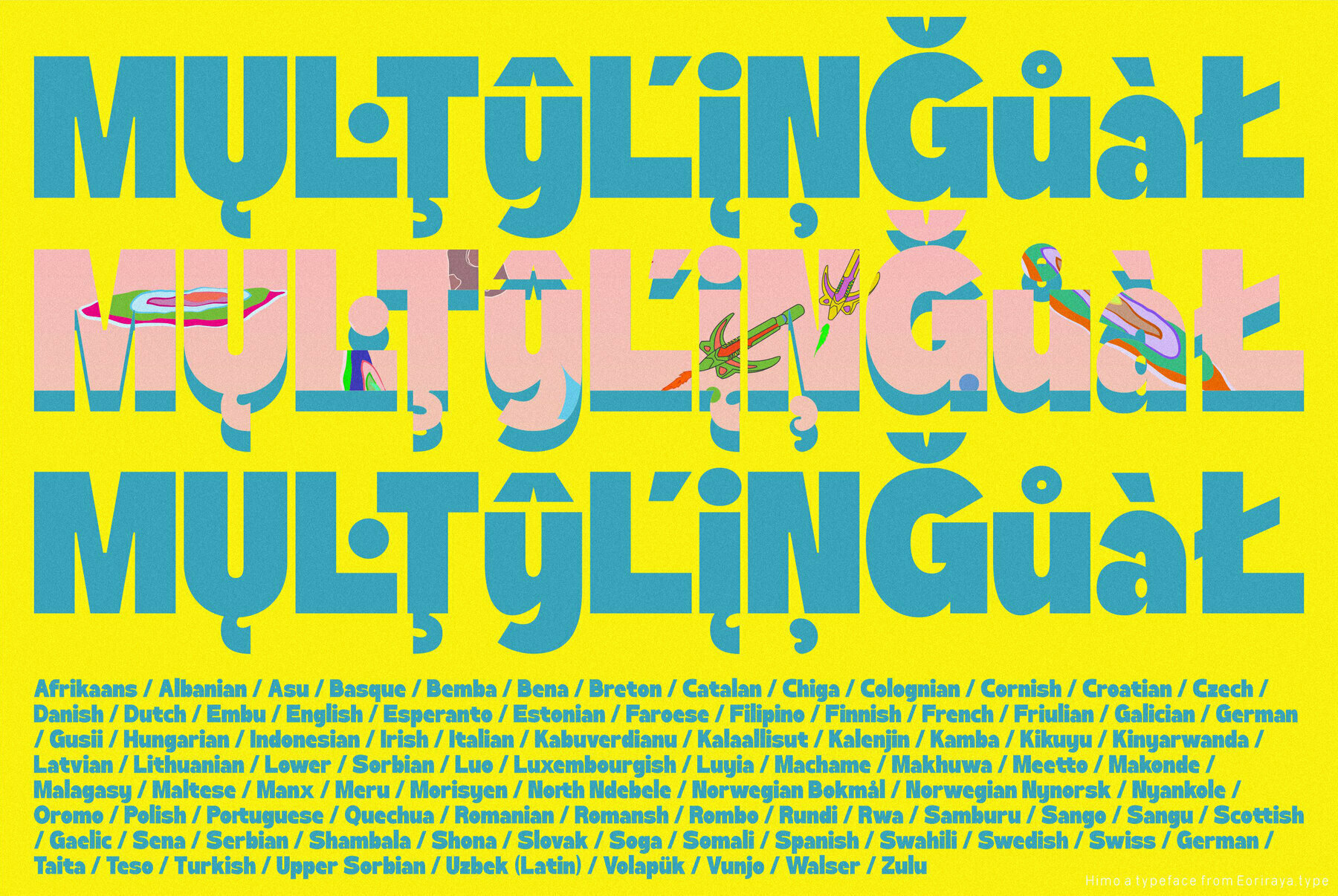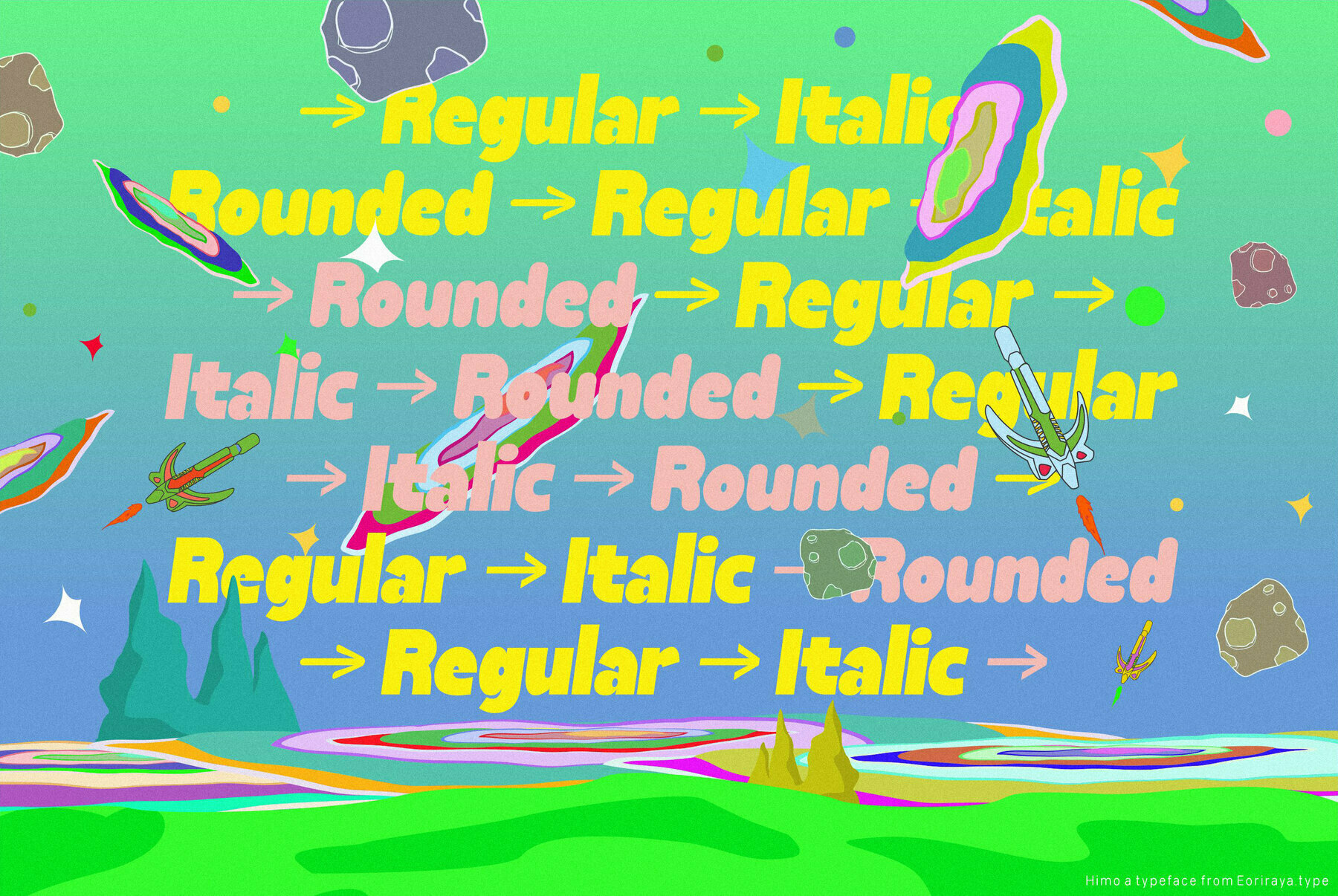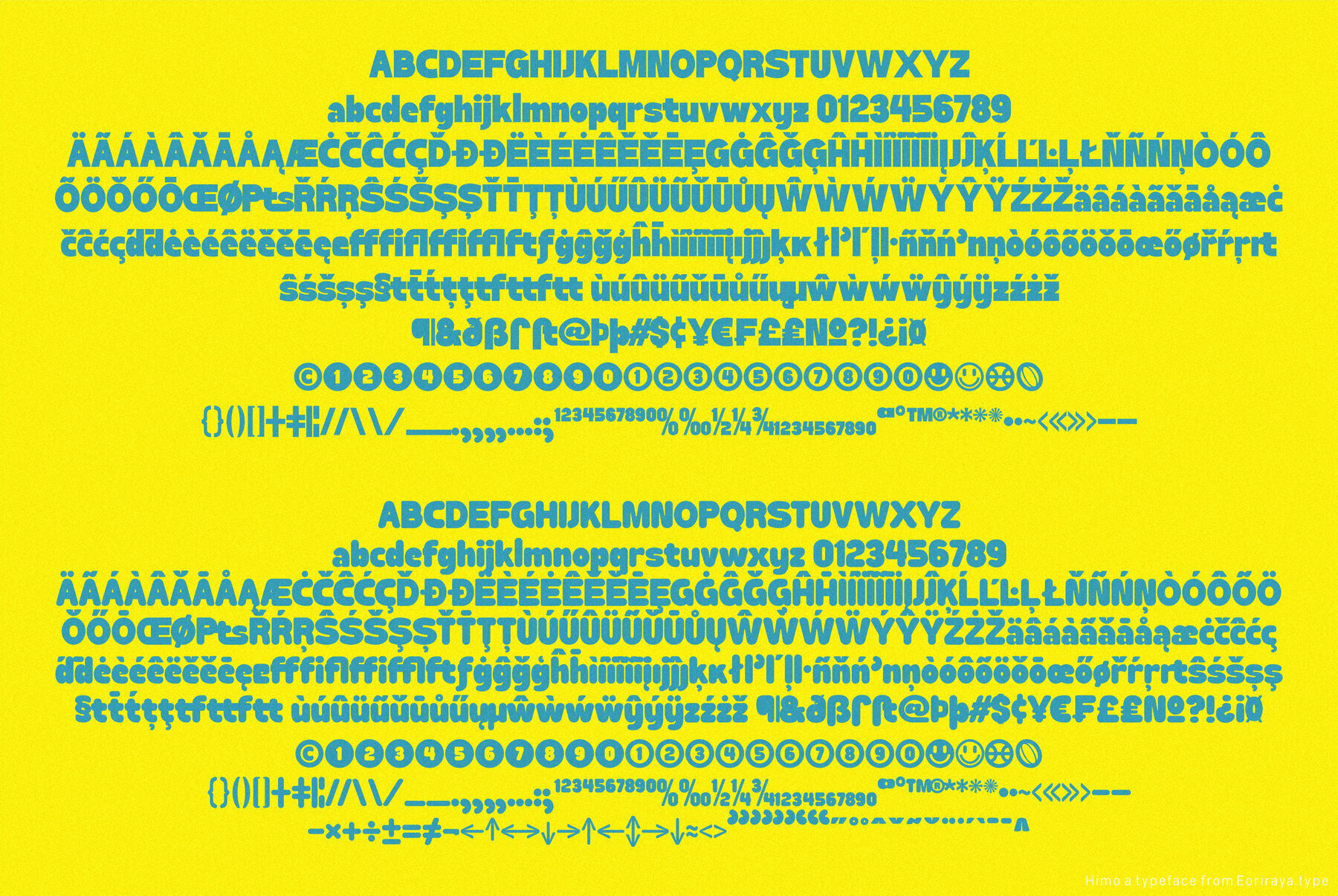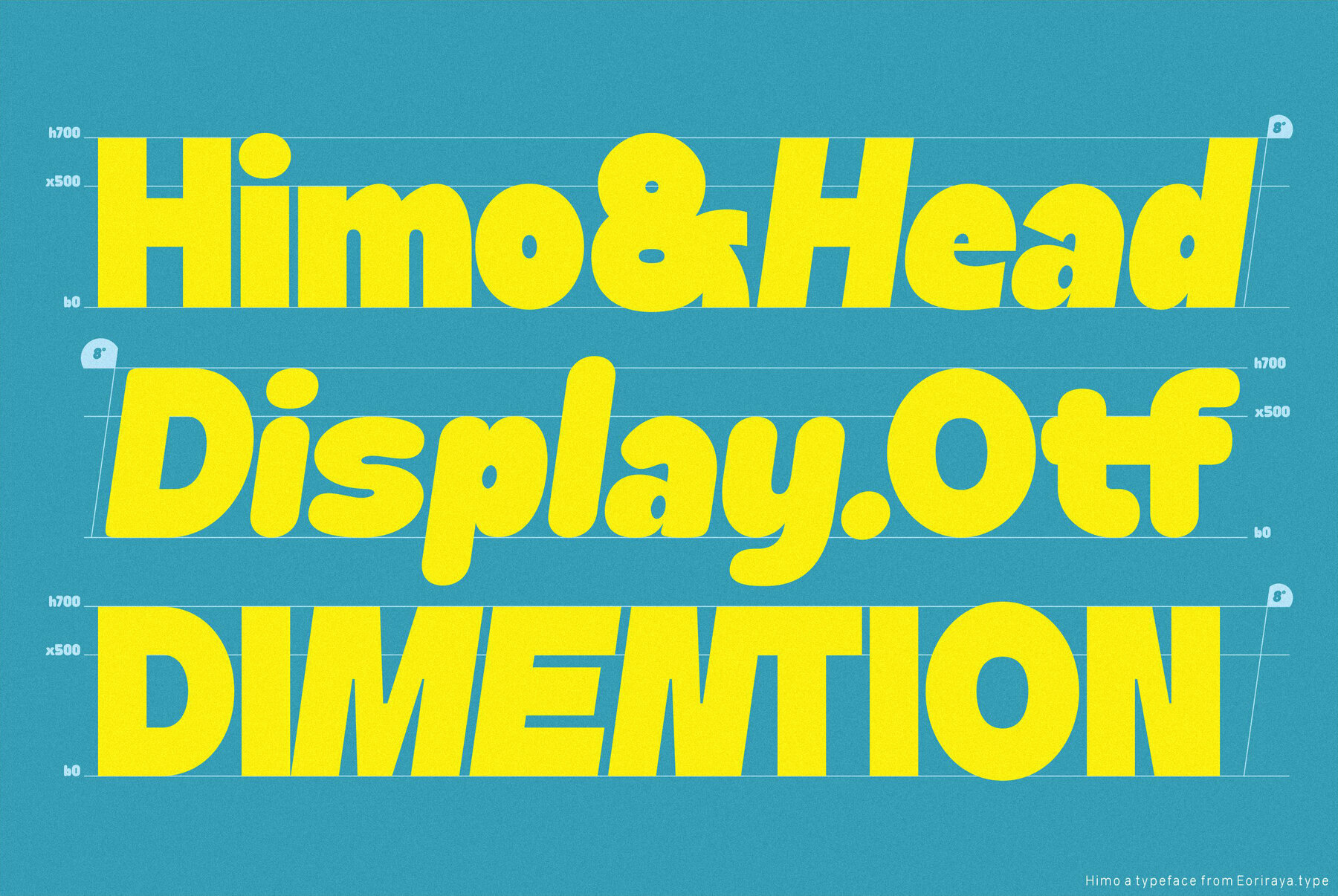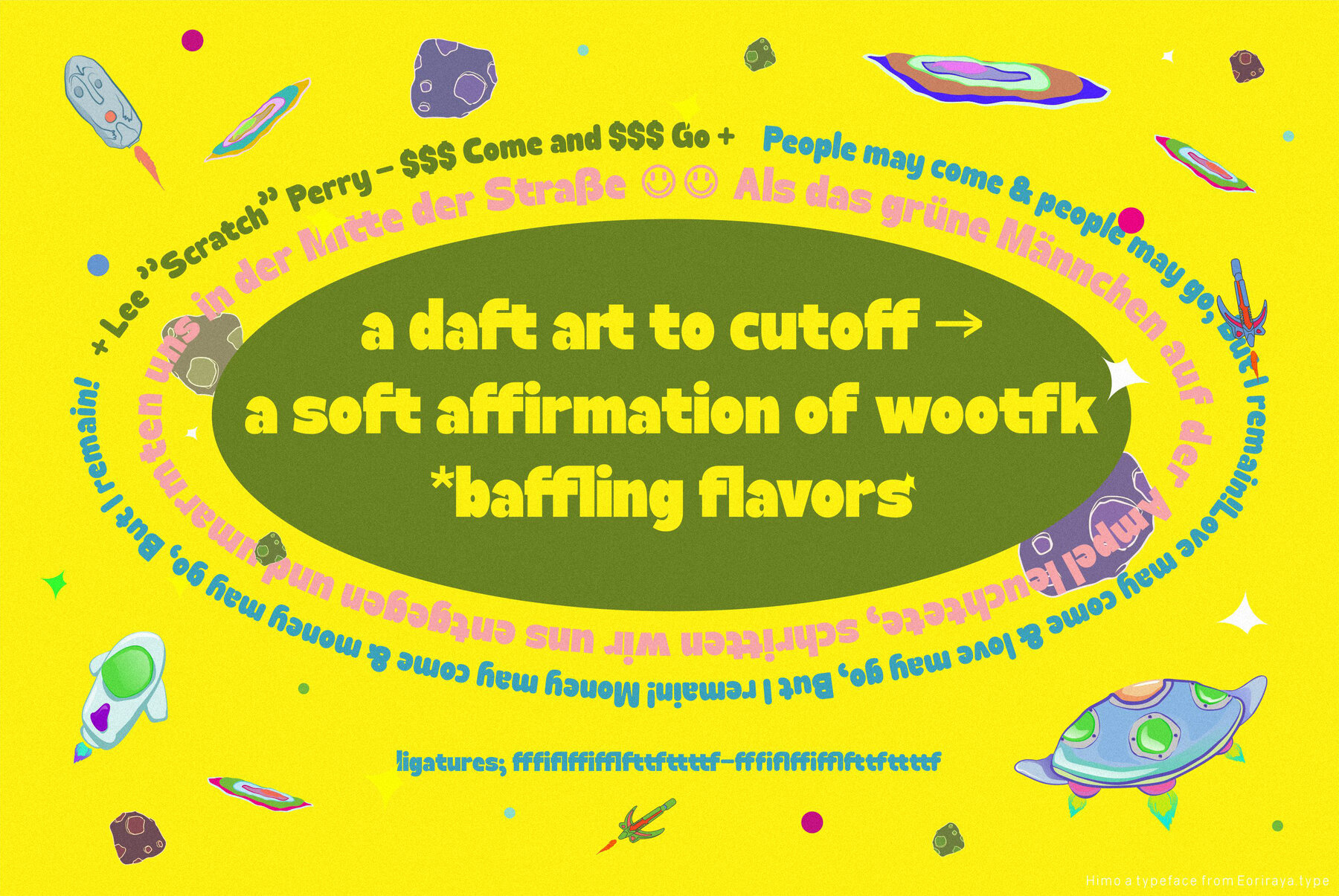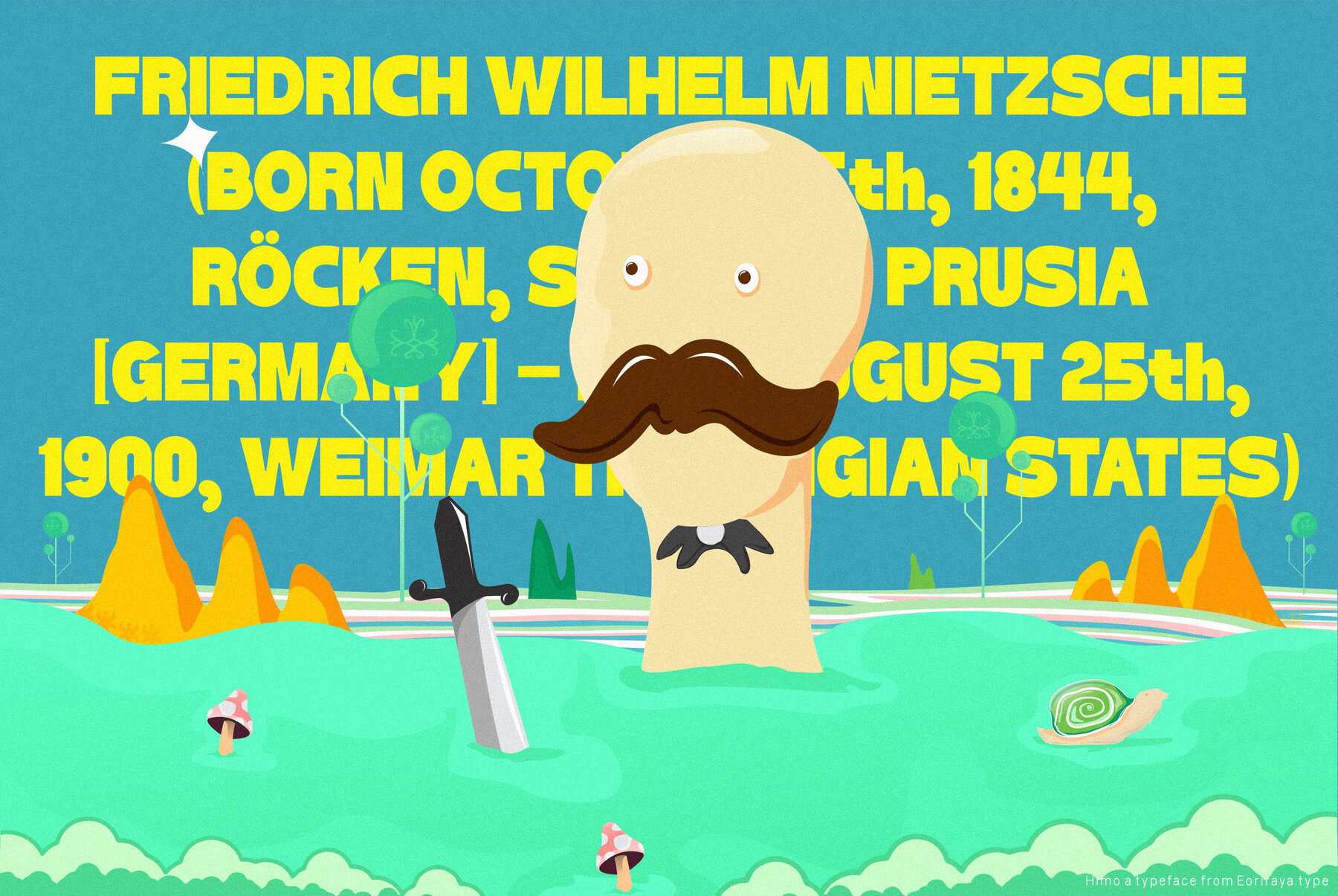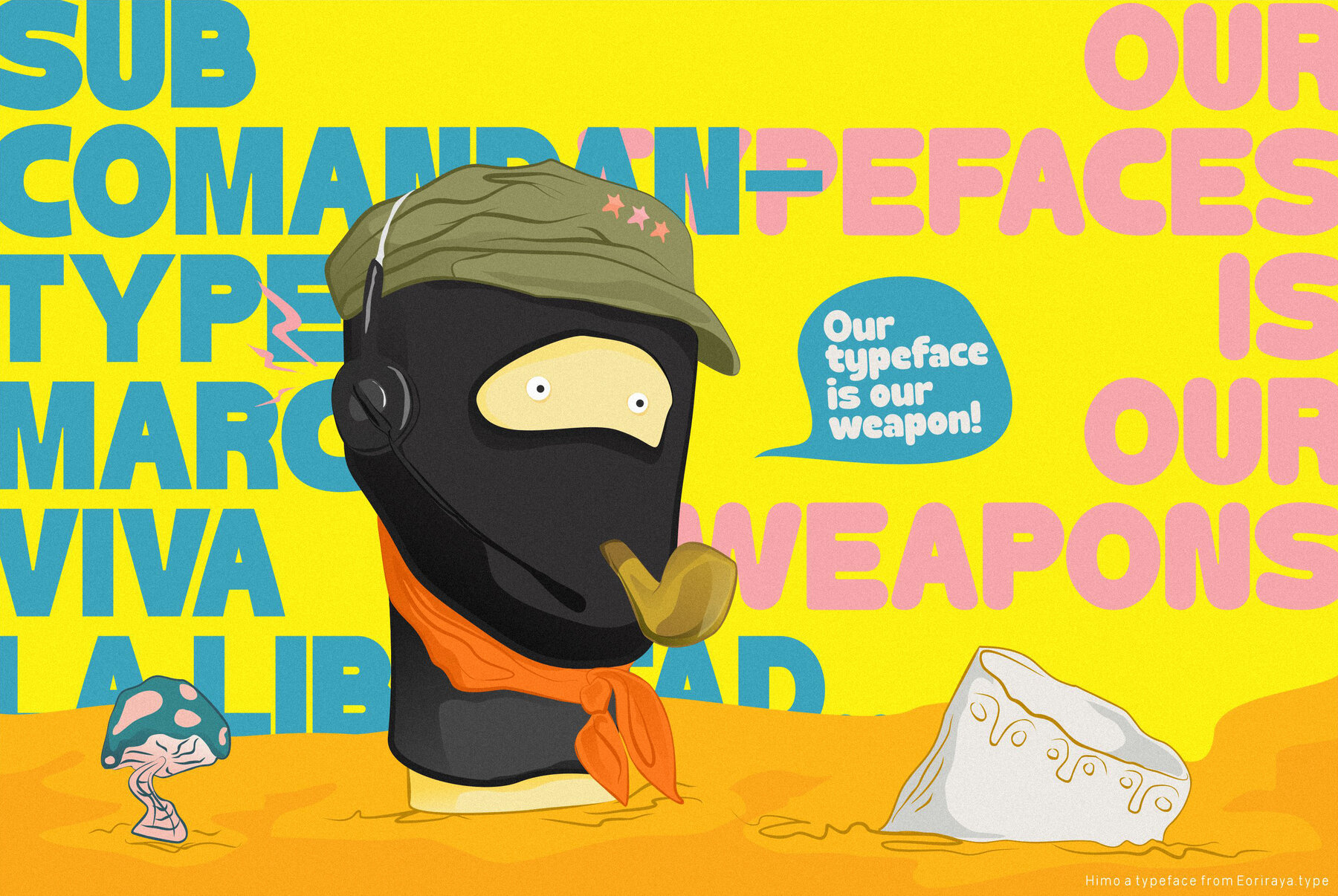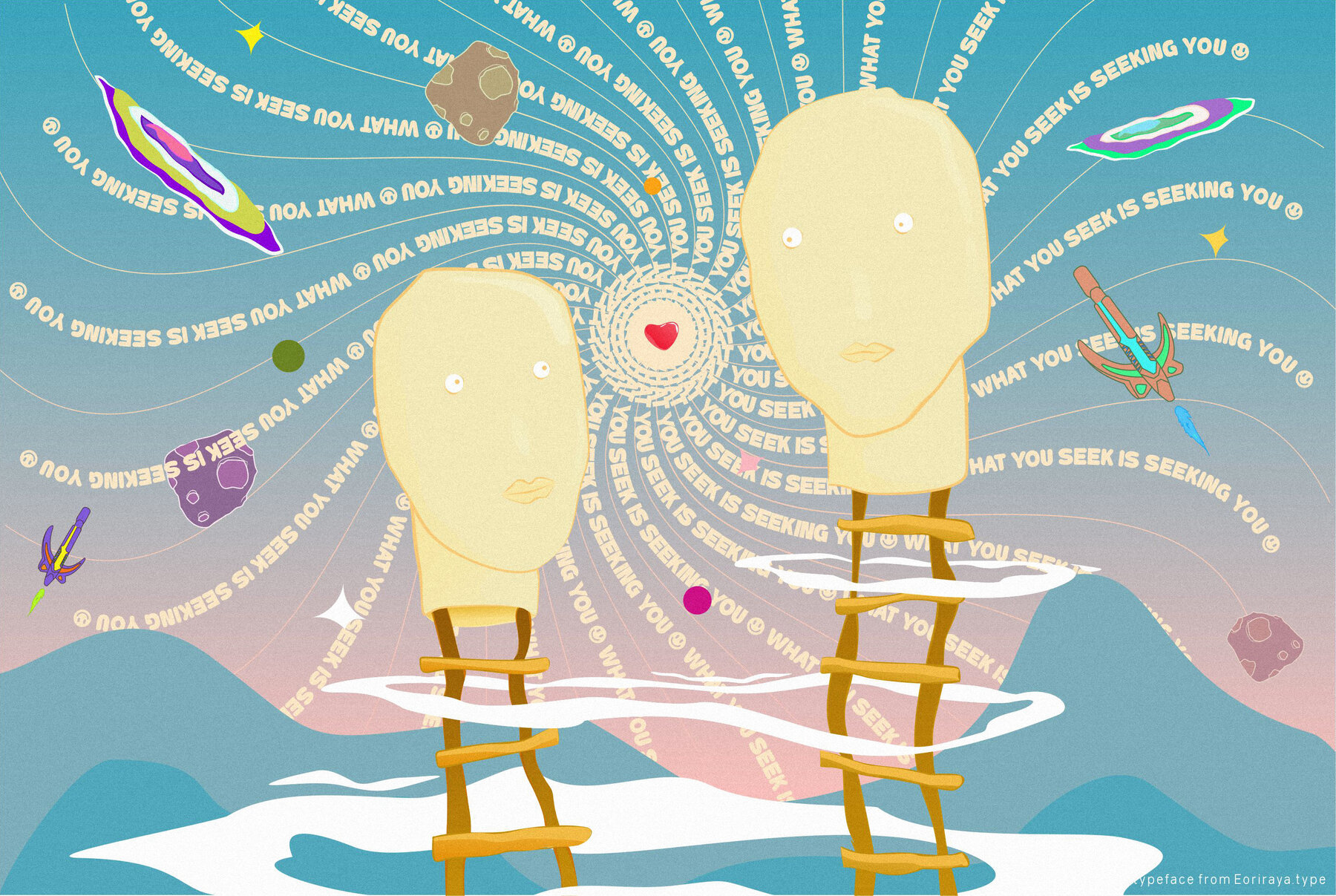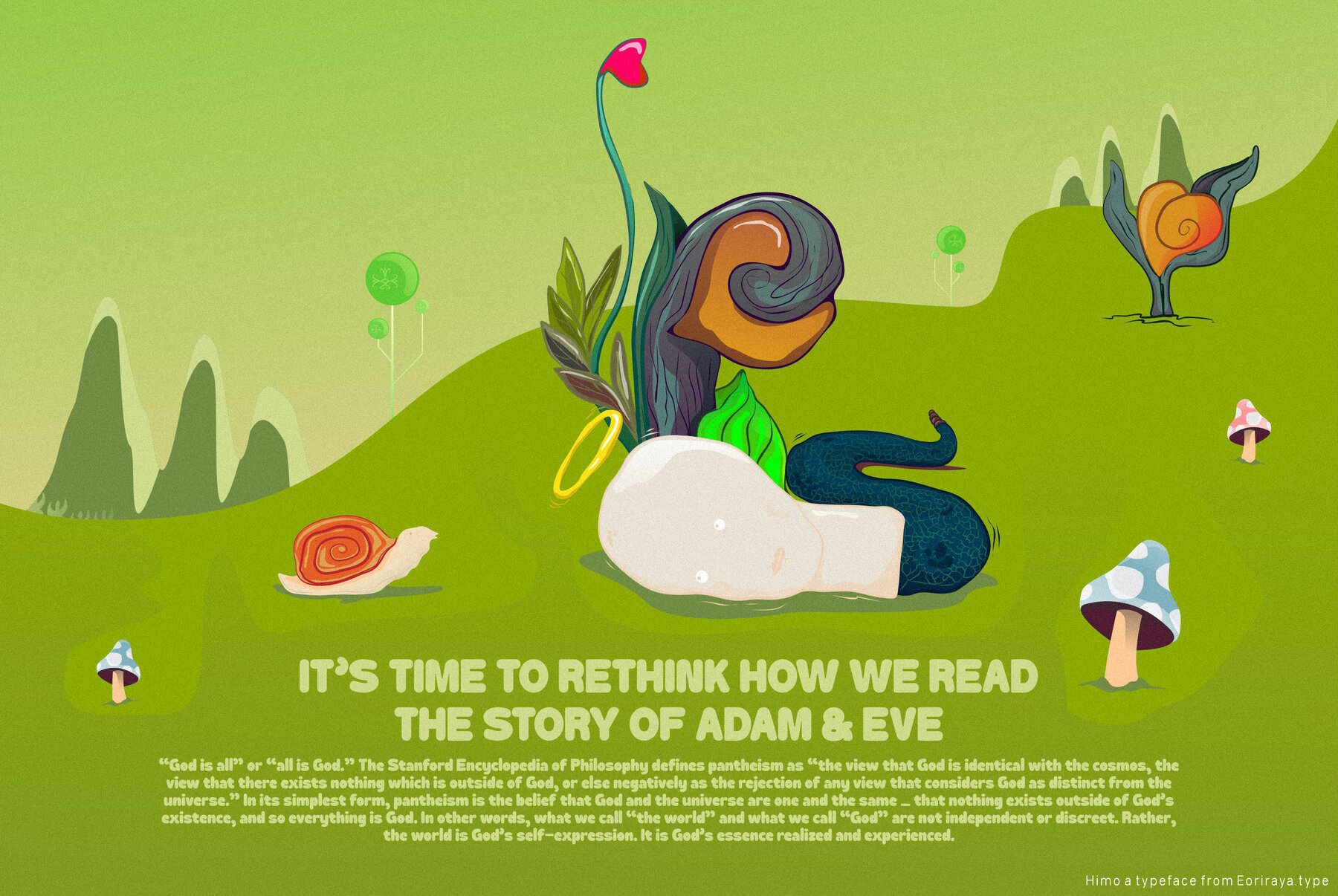
HIMO Font
Himo is a heavy and bold font that can be used for any brand with need to stand out. It comes in regular as well as round forms, so it will work on most displays effectively without looking too overwhelming or messy while still being easily legible at small sizes when needed! Himonic's wide range makes sure you're able use this cool typeface everywhere from film/entertainment related industries right down into fashion & culinary niche markets alike